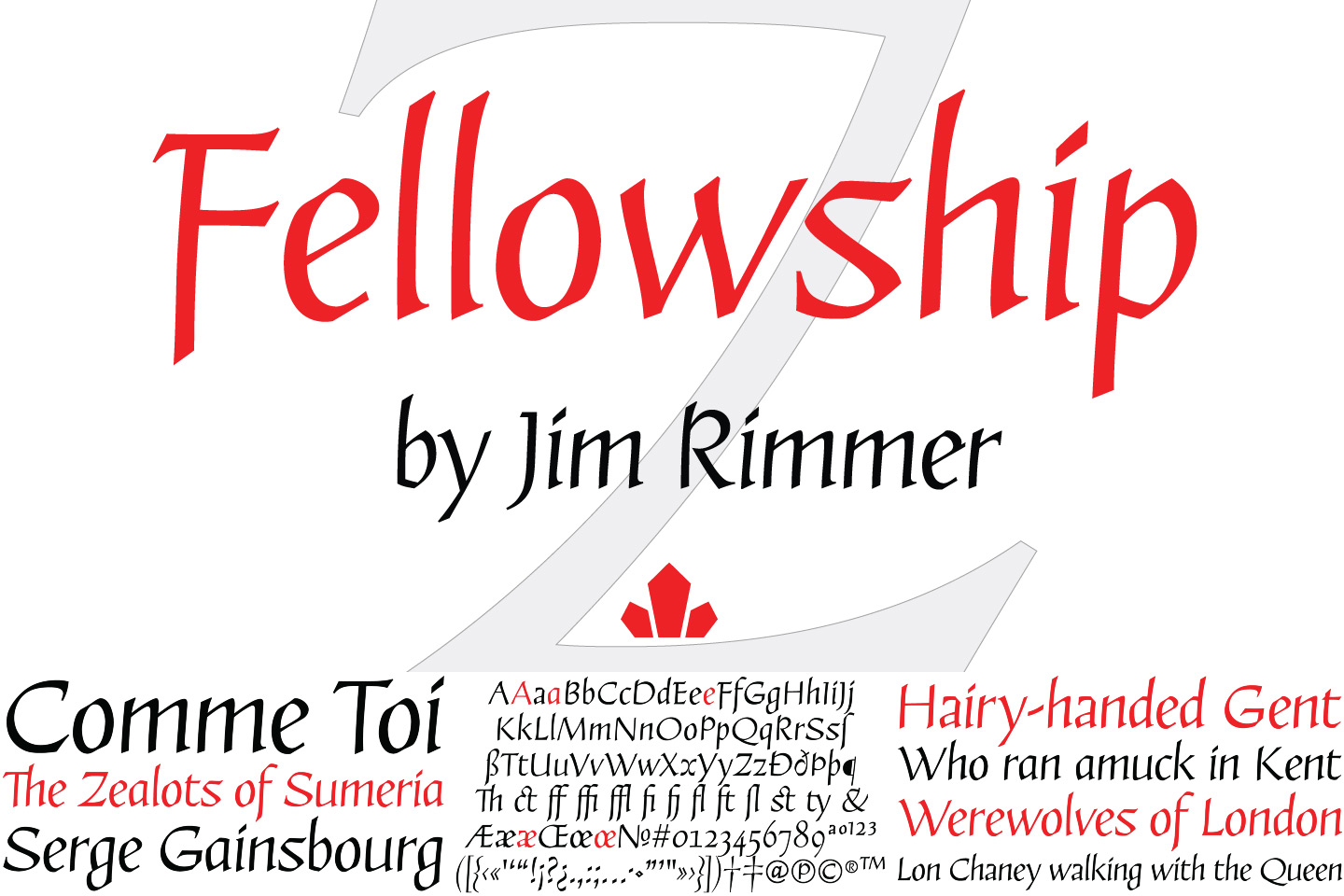
Fellowship
Fellowship by Canada Type
A calligraphic text font from Canadatype, Fellowship has Renaissance influences that are beautiful but subtle enough that you can use this font in multiple areas. Need a readable sign that gives a premium feel? Fellowship would be a fantastic replacement, especially if you have clients that are tempted to use other overused fonts like Papyrus.